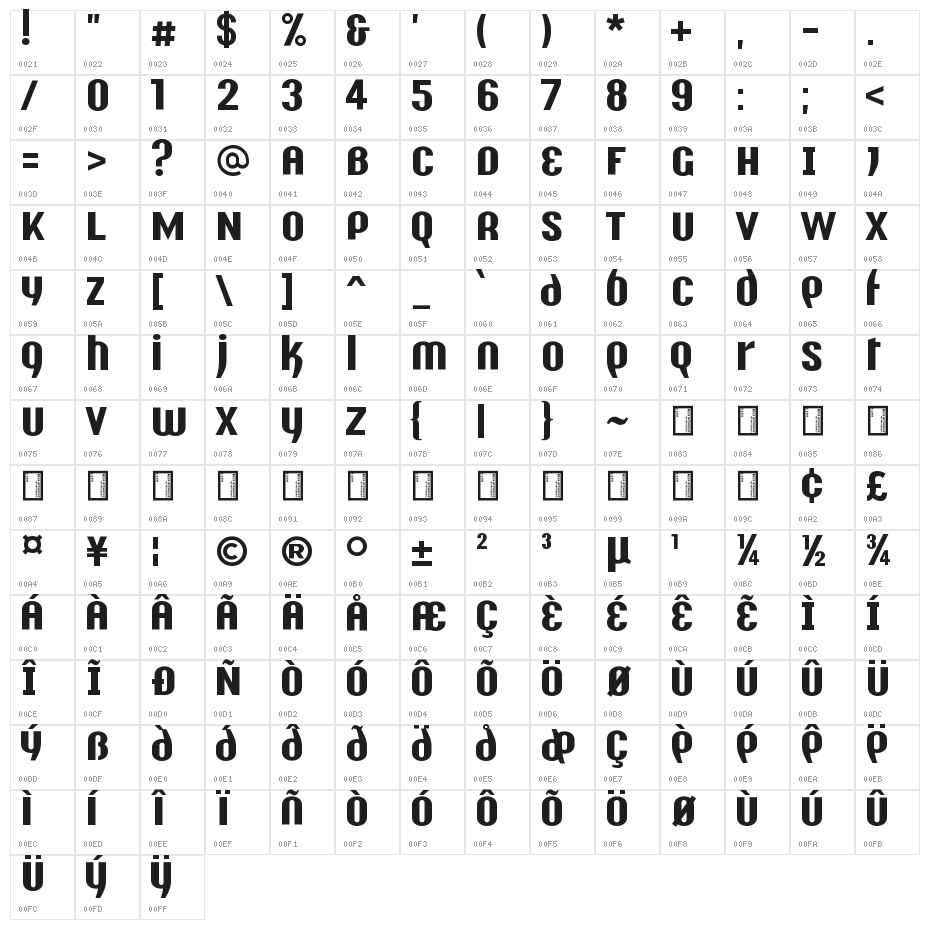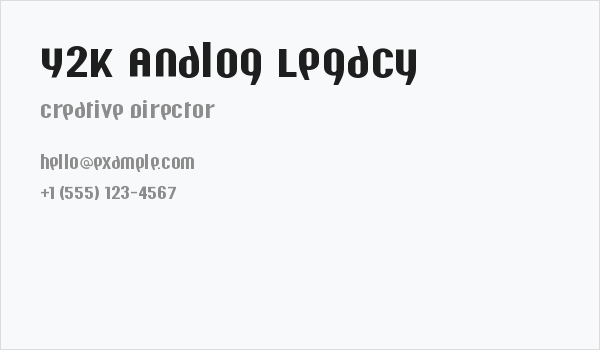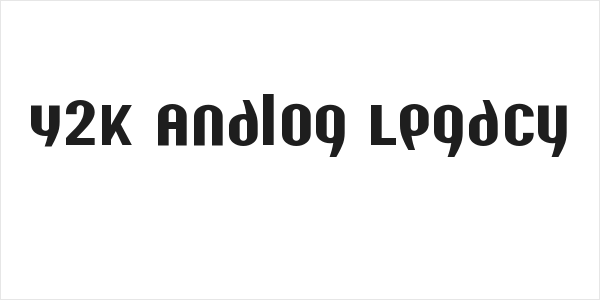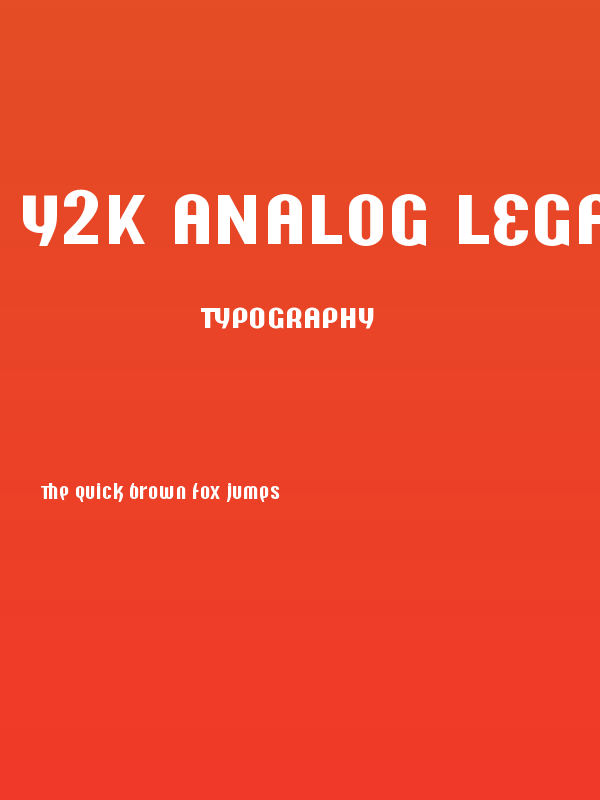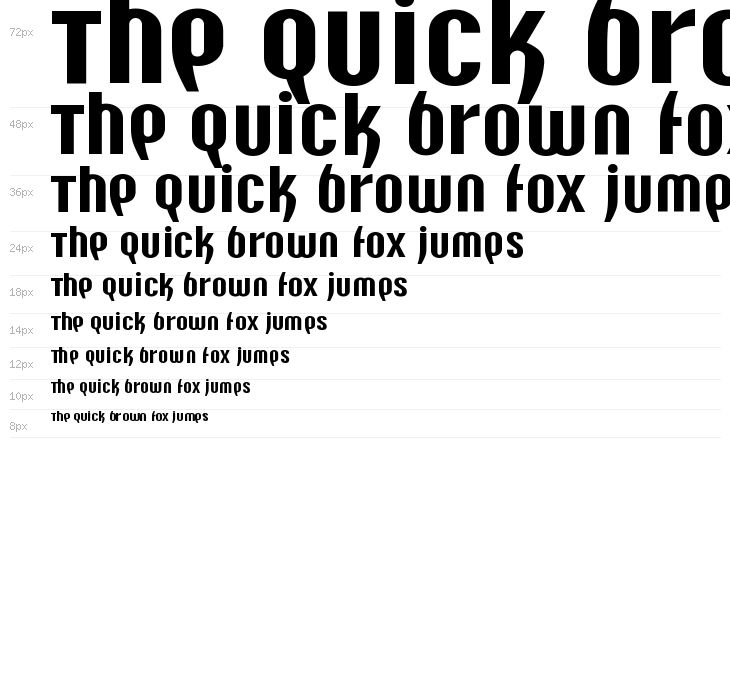
Y2K Analog Legacy Font
Y2K Analog Legacy Description
This font features a bold and striking design with a modern, digital aesthetic reminiscent of the Y2K era. The characters are wide and have a strong presence, with a geometric structure that emphasizes vertical and horizontal lines. The uppercase letters are particularly bold, while the lowercase letters maintain a consistent weight, offering a cohesive look. The numerals are clear and easy to read, matching the overall boldness of the alphabet. Special characters are well-integrated, maintaining the font's distinct style. This font is ideal for projects that require a futuristic or tech-inspired look.
| Proposed Projects | Ideal for tech branding, digital media, posters, and futuristic designs. |